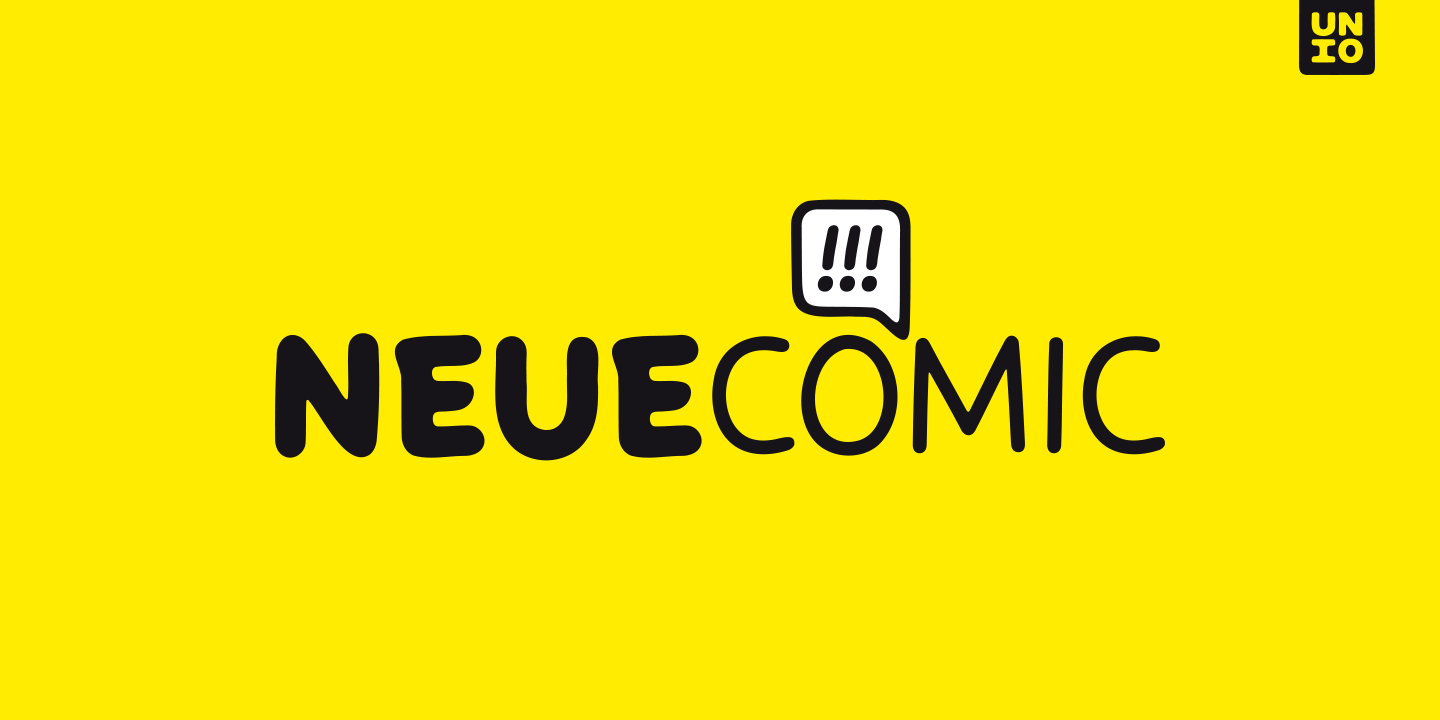
Neue Comic Font is perfect for comic book lettering, graphic novel projects, cartoon animation titles, children's book illustrations, superhero merchandise design, gaming interface text, webcomic creation, pop art exhibitions, youth-oriented marketing campaigns, educational materials for kids, animated series credits, and playful brand communications.
This font is exciting because it revolutionizes traditional comic book typography by combining the beloved charm of classic comic lettering with contemporary design sophistication and enhanced readability. The carefully refined letterforms maintain the energetic, hand-drawn feeling that comic fans adore while offering improved legibility and professional polish that works beautifully in both digital and print applications. Each character bursts with personality and dynamic energy, bringing stories to life with the same visual excitement that makes comic books so captivating to readers of all ages.
The Neue Comic Font family includes regular and bold weights with complete uppercase and lowercase alphabets, comic-style numerals, expressive punctuation marks, and special comic book symbols like speech balloons and sound effects. Advanced versions may feature additional stylistic alternates, hand-lettered variations, and enhanced spacing options optimized for comic book panel layouts.
Whether you're creating original comic books, developing animated content, or designing playful brand materials, Neue Comic Font Free Download delivers the perfect balance of nostalgic comic charm and modern functionality your project needs. This typeface transforms ordinary text into dynamic visual narratives that capture readers' imagination and bring stories to vivid life. The font's versatility makes it ideal for both professional comic production and casual creative projects. Comic artists and designers will appreciate how this font combines authentic comic book spirit with contemporary design standards for maximum impact.